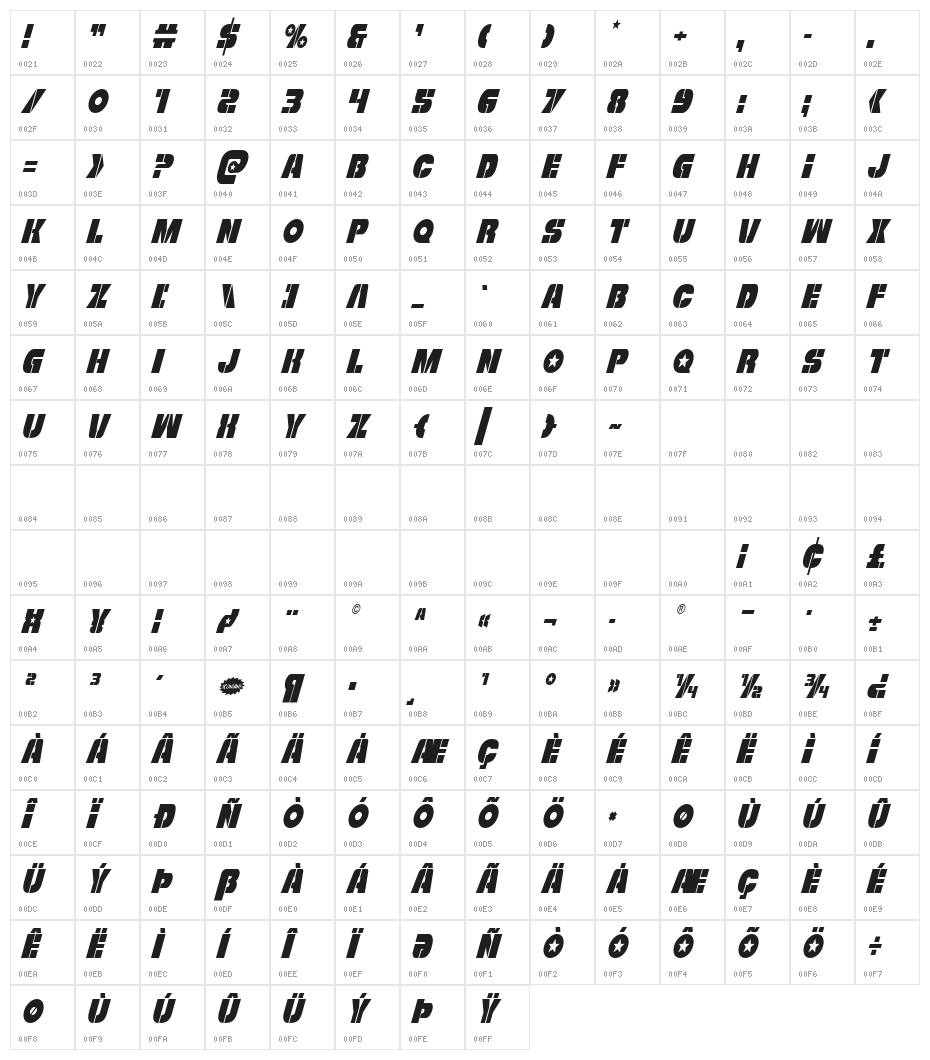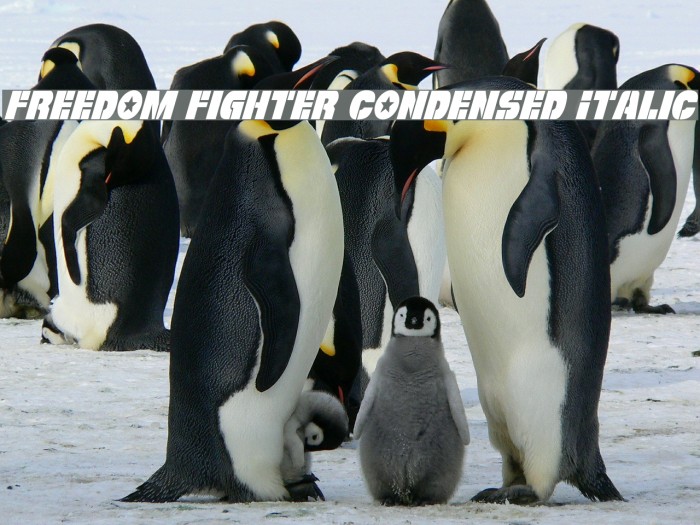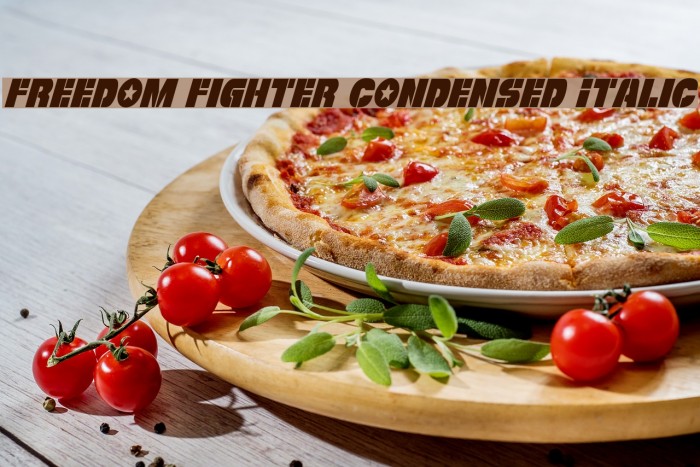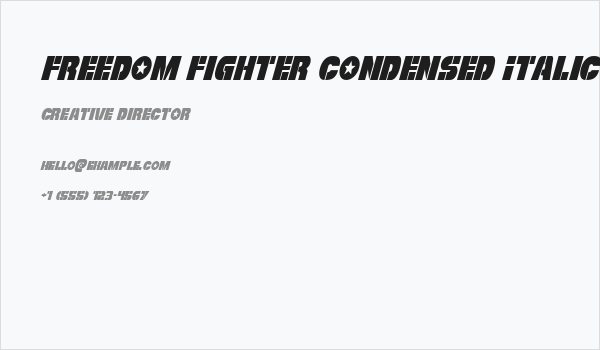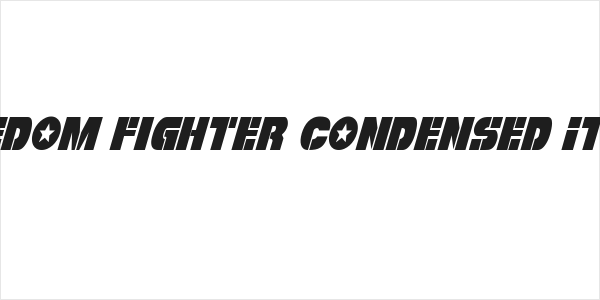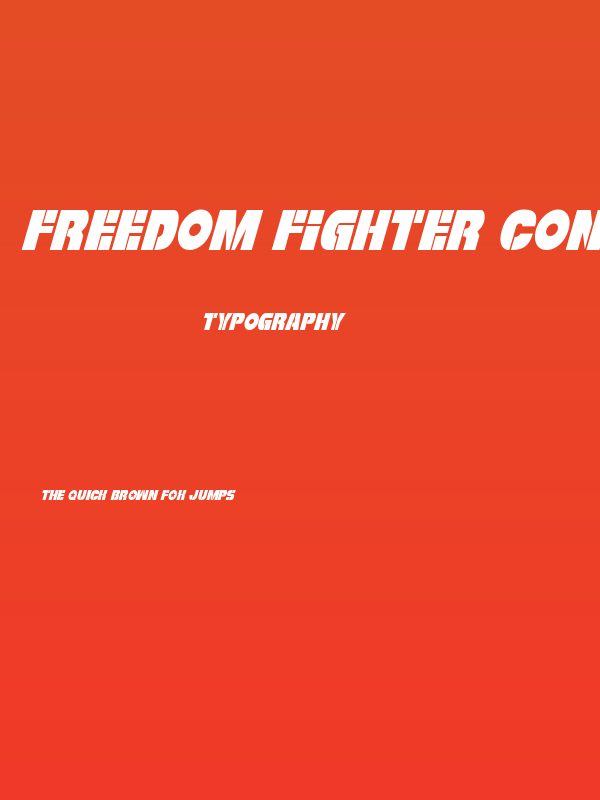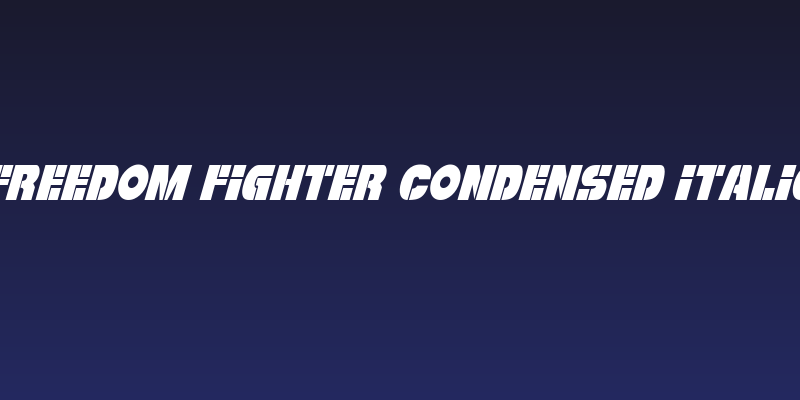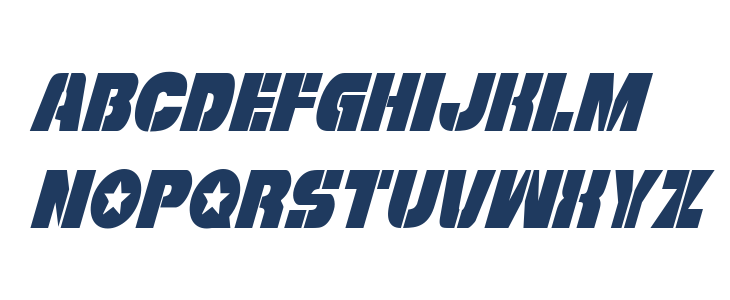
Freedom Fighter Condensed Italic Font
Freedom Fighter Condensed Italic Description
This font features a bold, condensed style with a strong italic slant, giving it a dynamic and energetic appearance. The characters are robust and impactful, with sharp angles and a geometric structure that conveys a sense of movement and urgency. The uppercase letters are particularly striking, with some incorporating unique design elements such as stars within the 'O'. The numbers and special characters maintain this bold aesthetic, ensuring consistency across all glyphs. The overall design is modern and assertive, making it suitable for attention-grabbing headlines or branding that requires a strong visual presence.
| Proposed Projects | Ideal for use in posters, sports branding, action-themed designs, and dynamic advertising campaigns. |